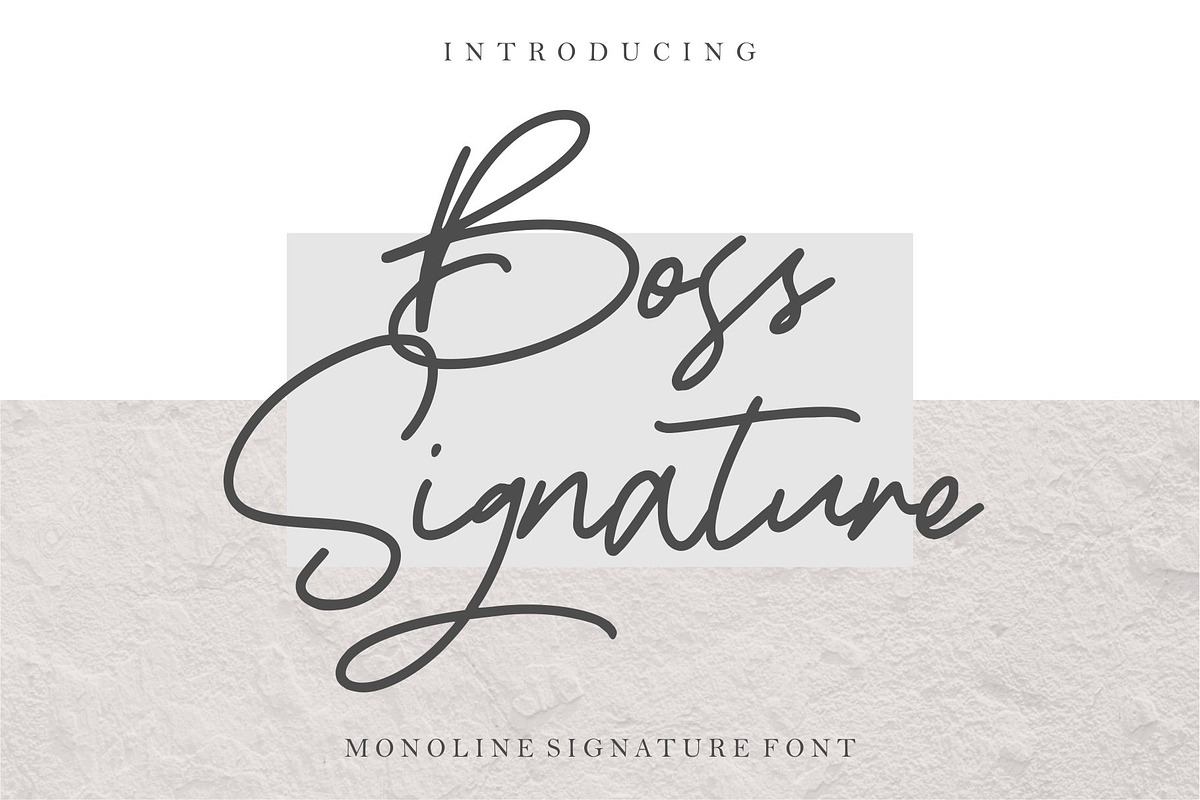
Boss Signature Font Free Download is a sleek, stylish script typeface that exudes elegance and sophistication. With its flowing, smooth strokes and signature-like style, this font is perfect for creating high-end logos, personal branding, invitations, and upscale promotional materials. It combines the fluidity of a handwritten script with a modern, professional look.
Using the Boss Signature Font Free Download adds a personal, luxurious touch to your designs. Whether you're working on a premium brand identity, designing custom stationery, or creating elegant product packaging, this font enhances your project with its refined style and fluidity.